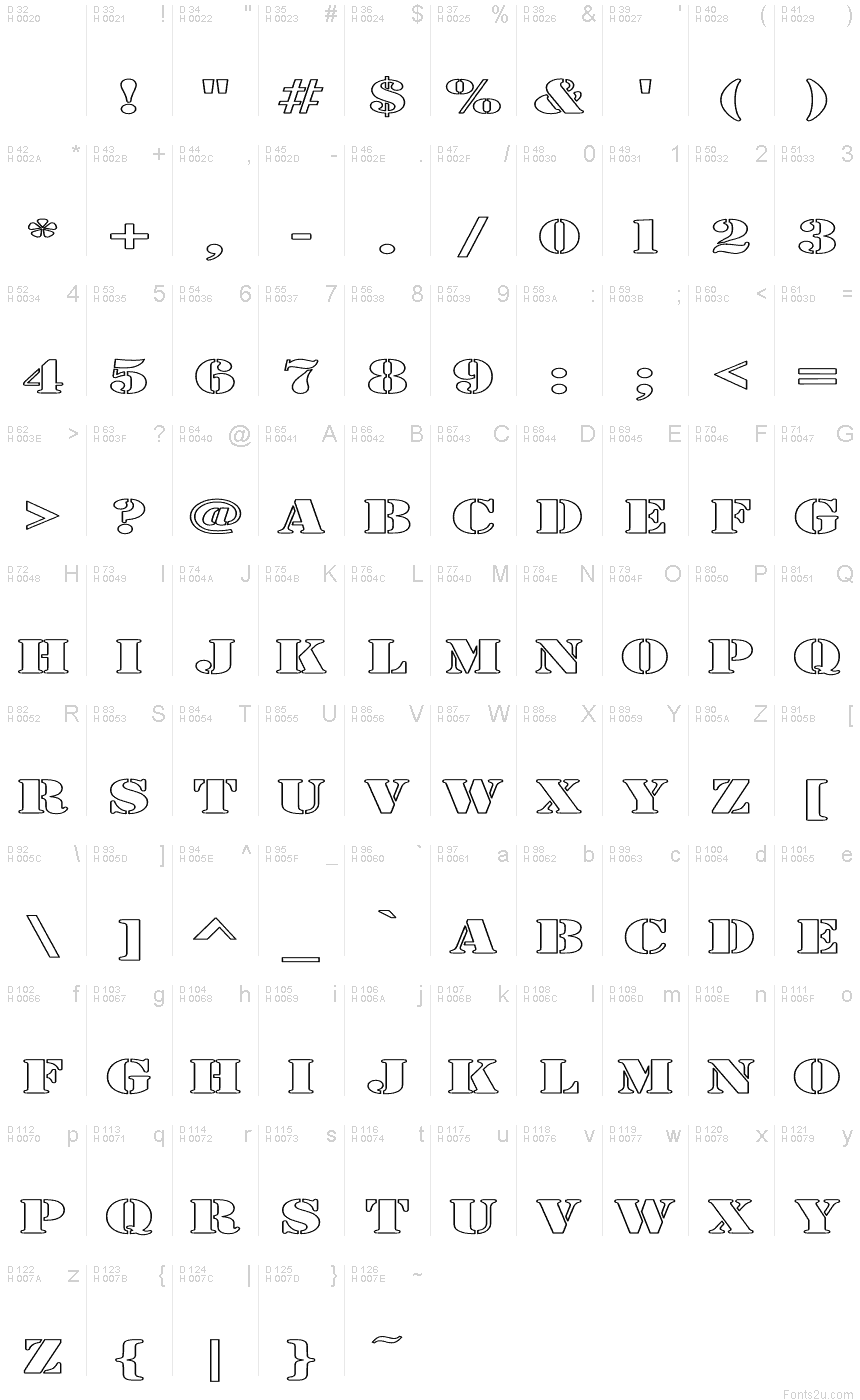
Army Hollow Expanded
Army Hollow Expanded font is a free military stencil display typeface that turns big, bold lettering into something surprisingly light and open. With its widened stance, hollow interiors, and crisp stencil breaks, it feels like spray paint over metal plates-strong, structured, but never heavy. As part of the Army font family, its clean outlines stay legible even at large sizes, making it great when you need impact without a solid block of ink.
This free font shines on posters, tactical event signage, airsoft or paintball branding, game titles, YouTube thumbnails, and military-themed apparel or merch. Using Army Hollow Expanded gives your layouts that rugged, field-issued attitude while still looking polished and modern. For balance, pair it with a simple sans serif at smaller sizes and let Army Hollow Expanded handle the loud, attention-grabbing headlines.